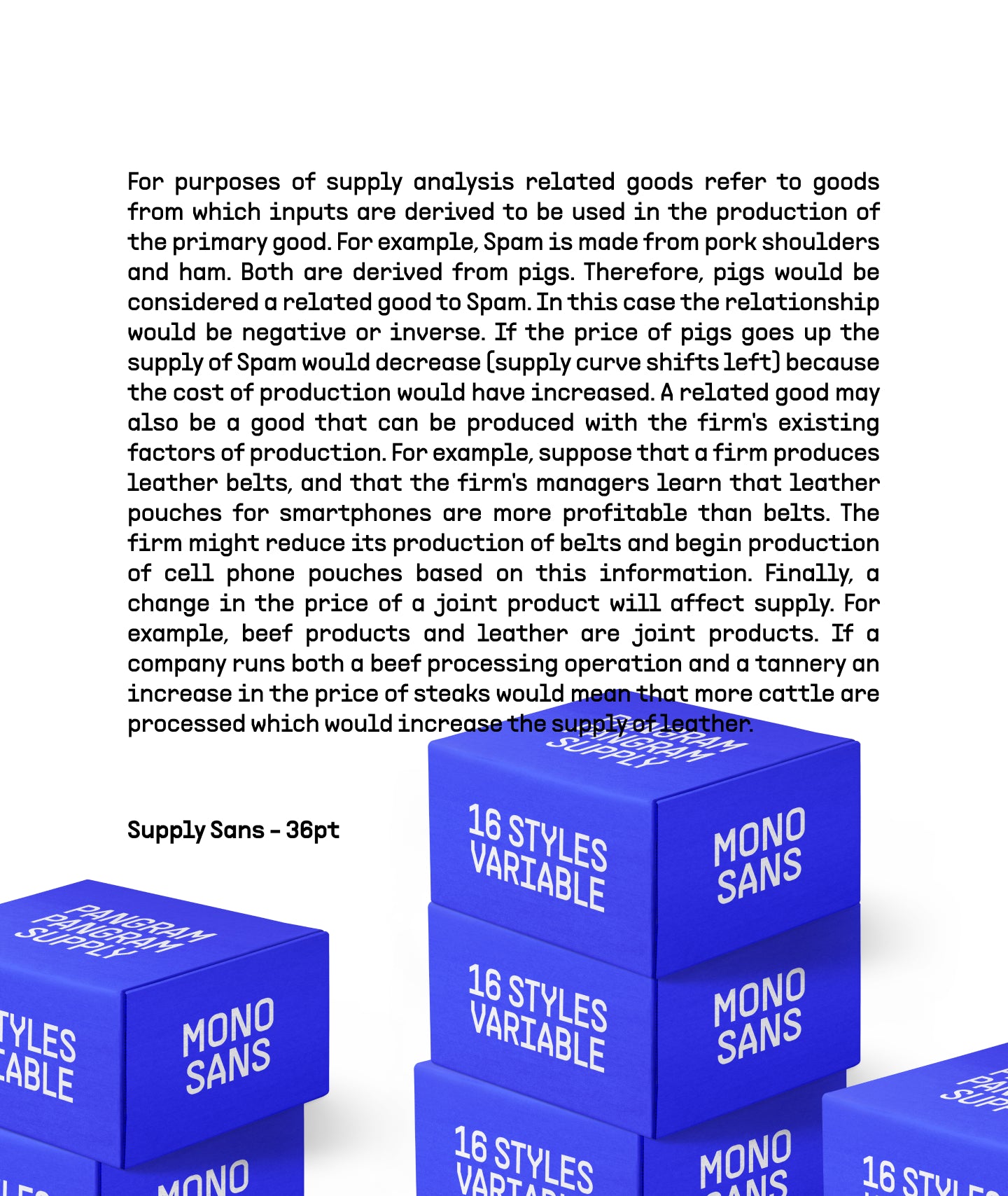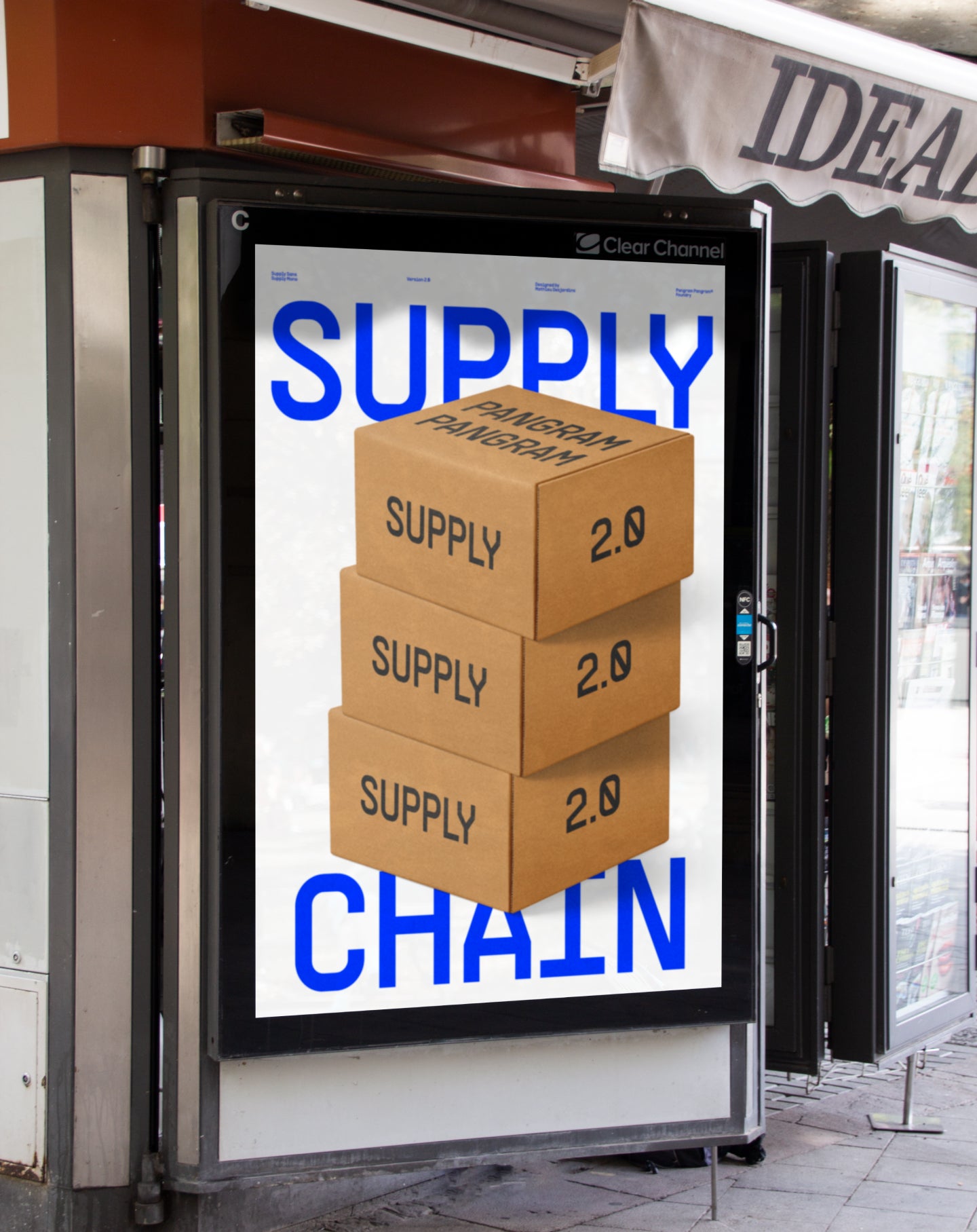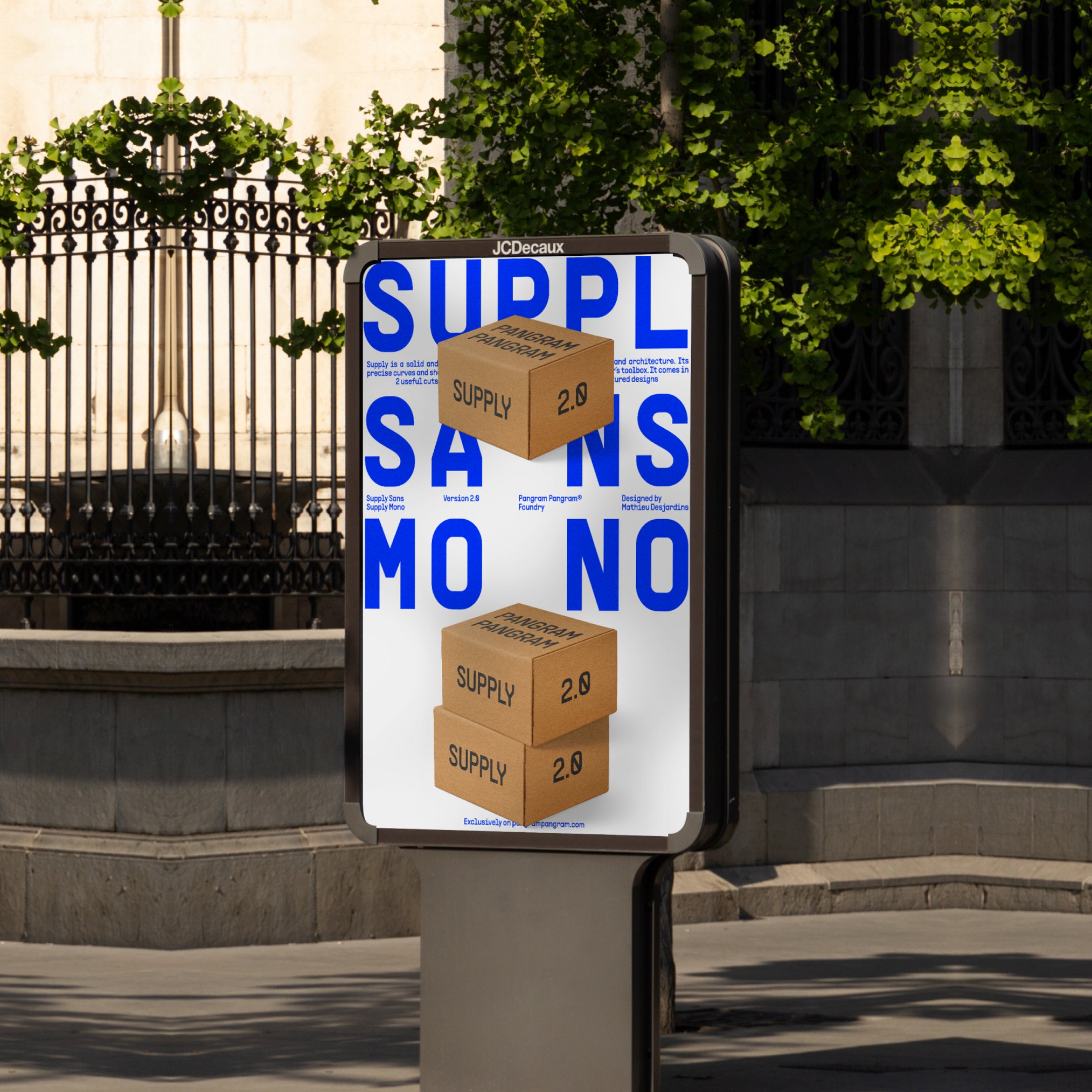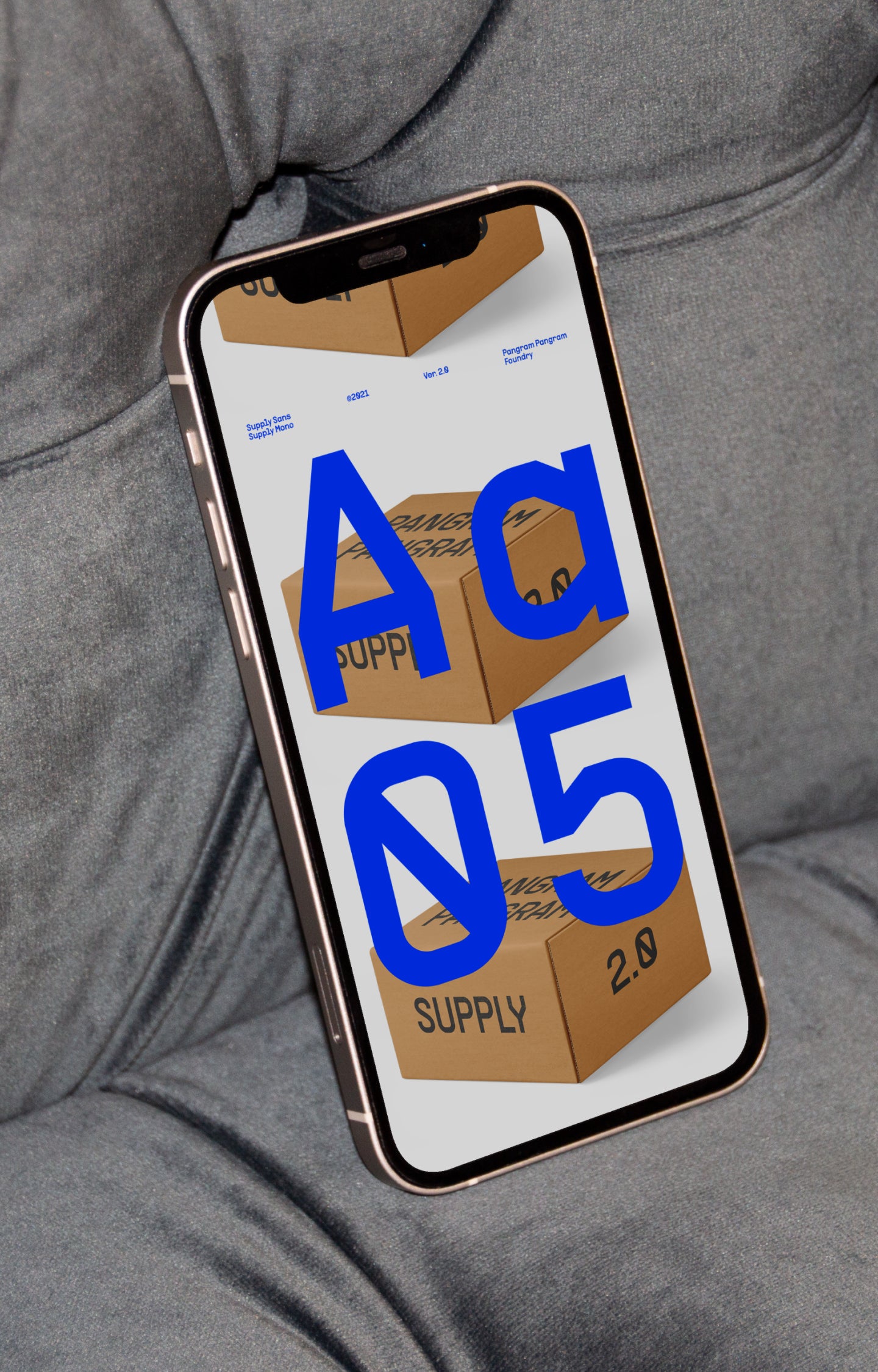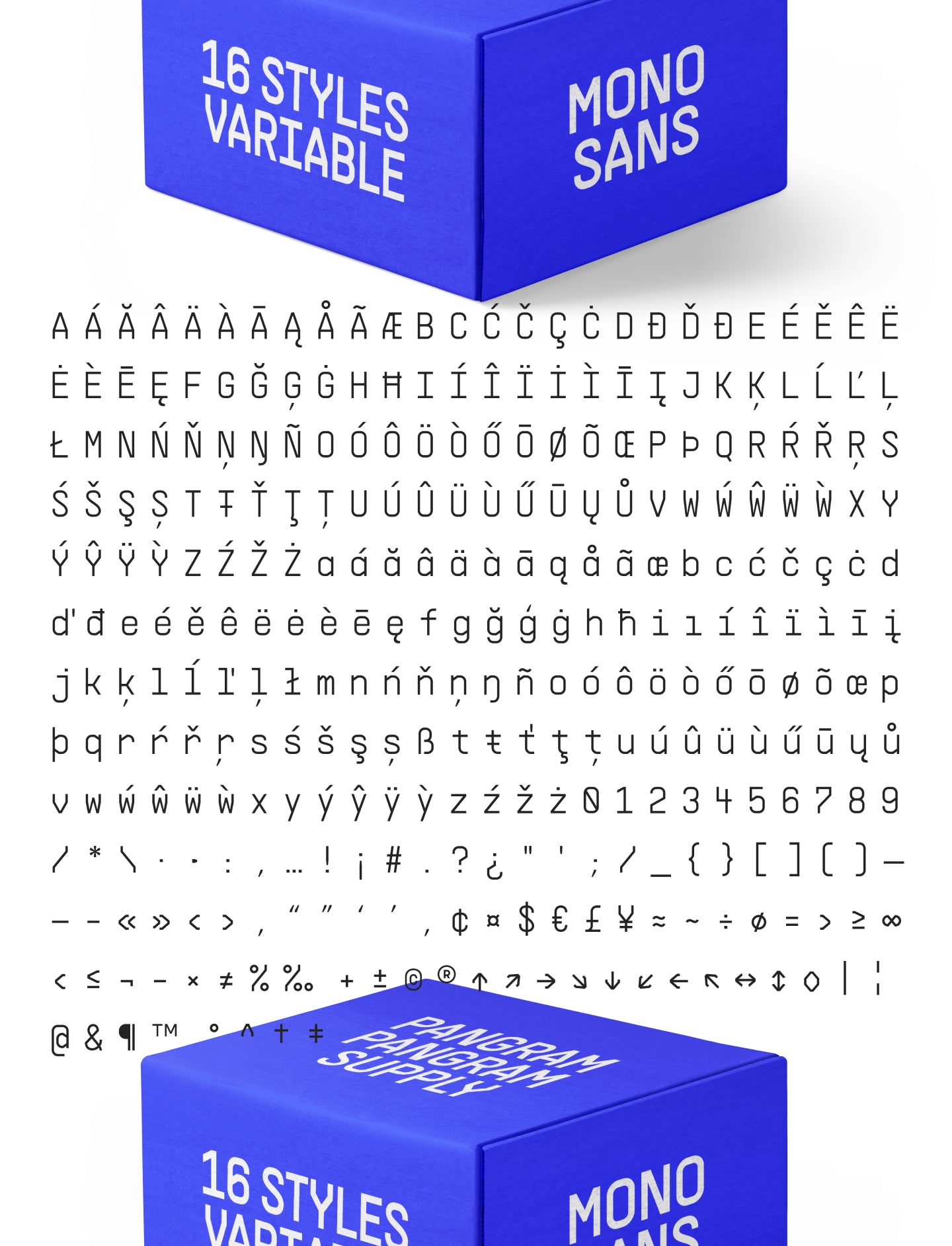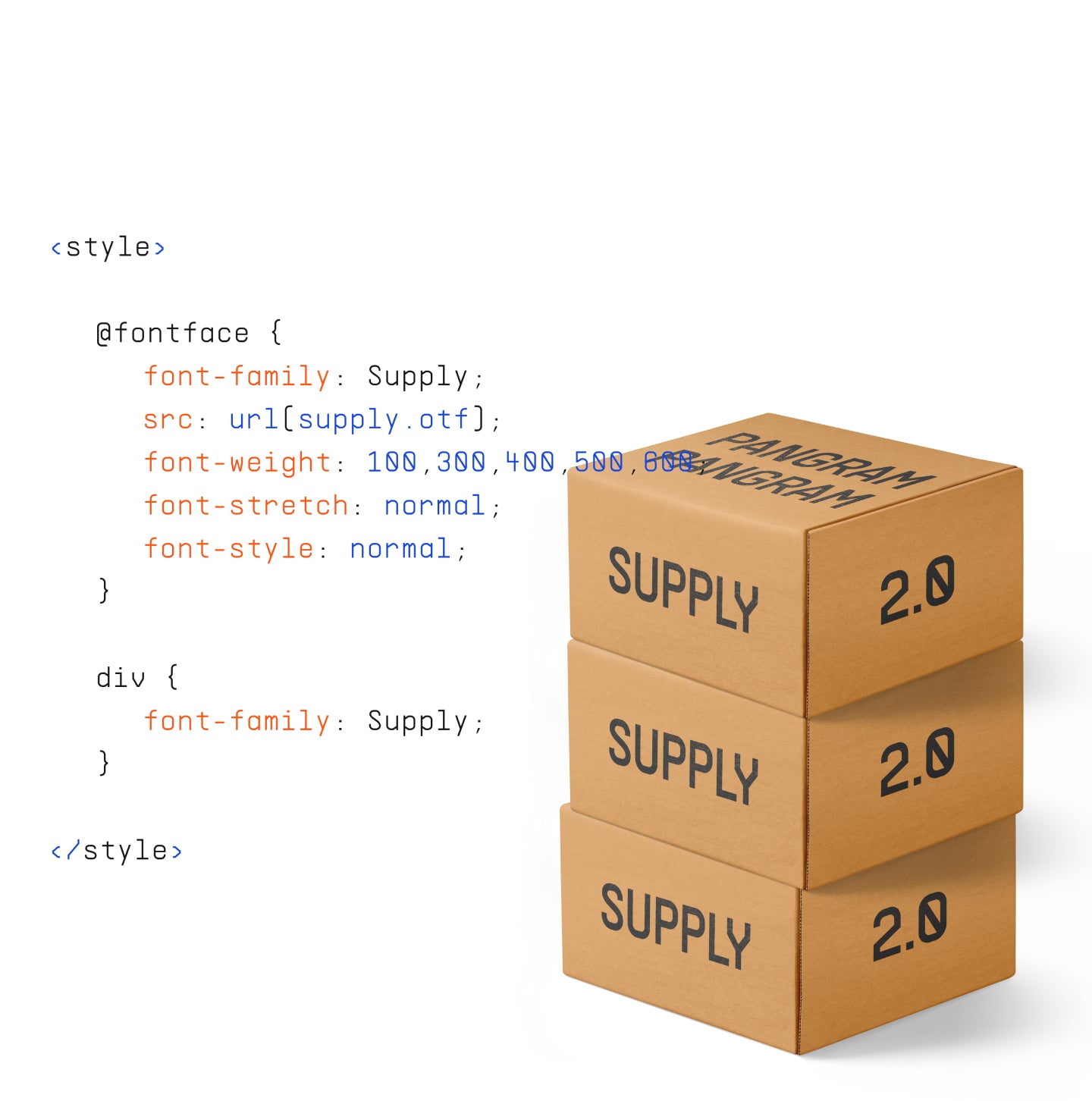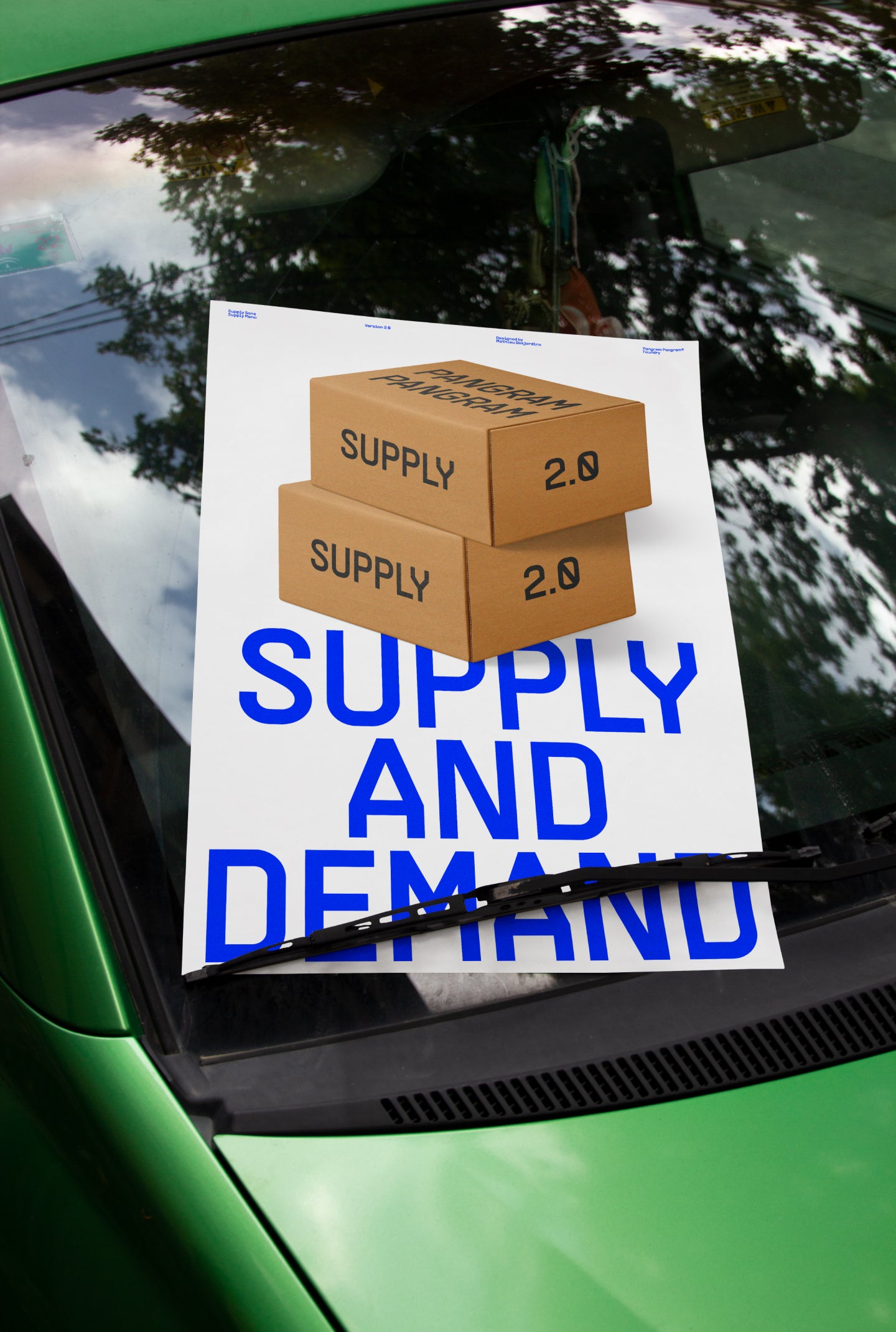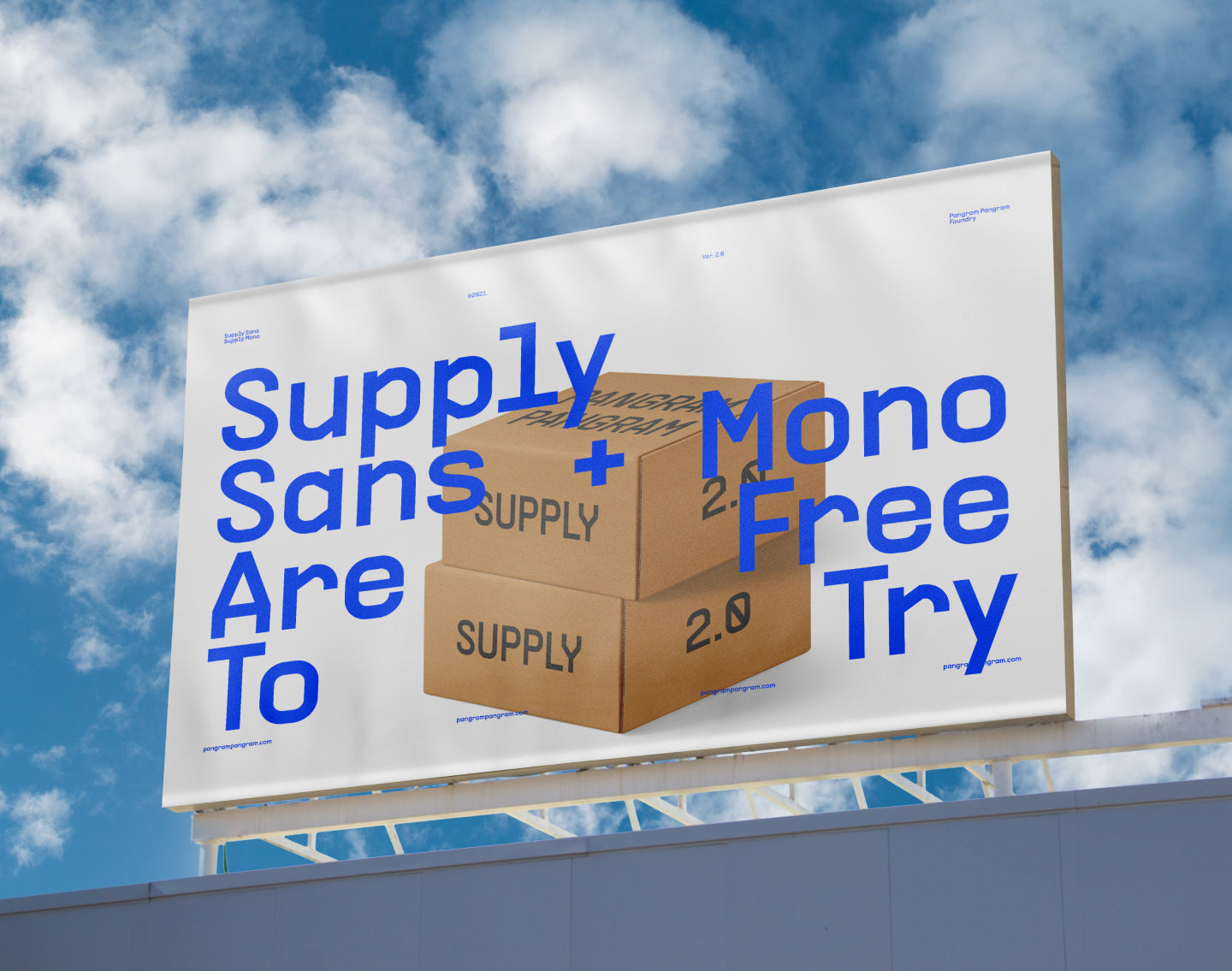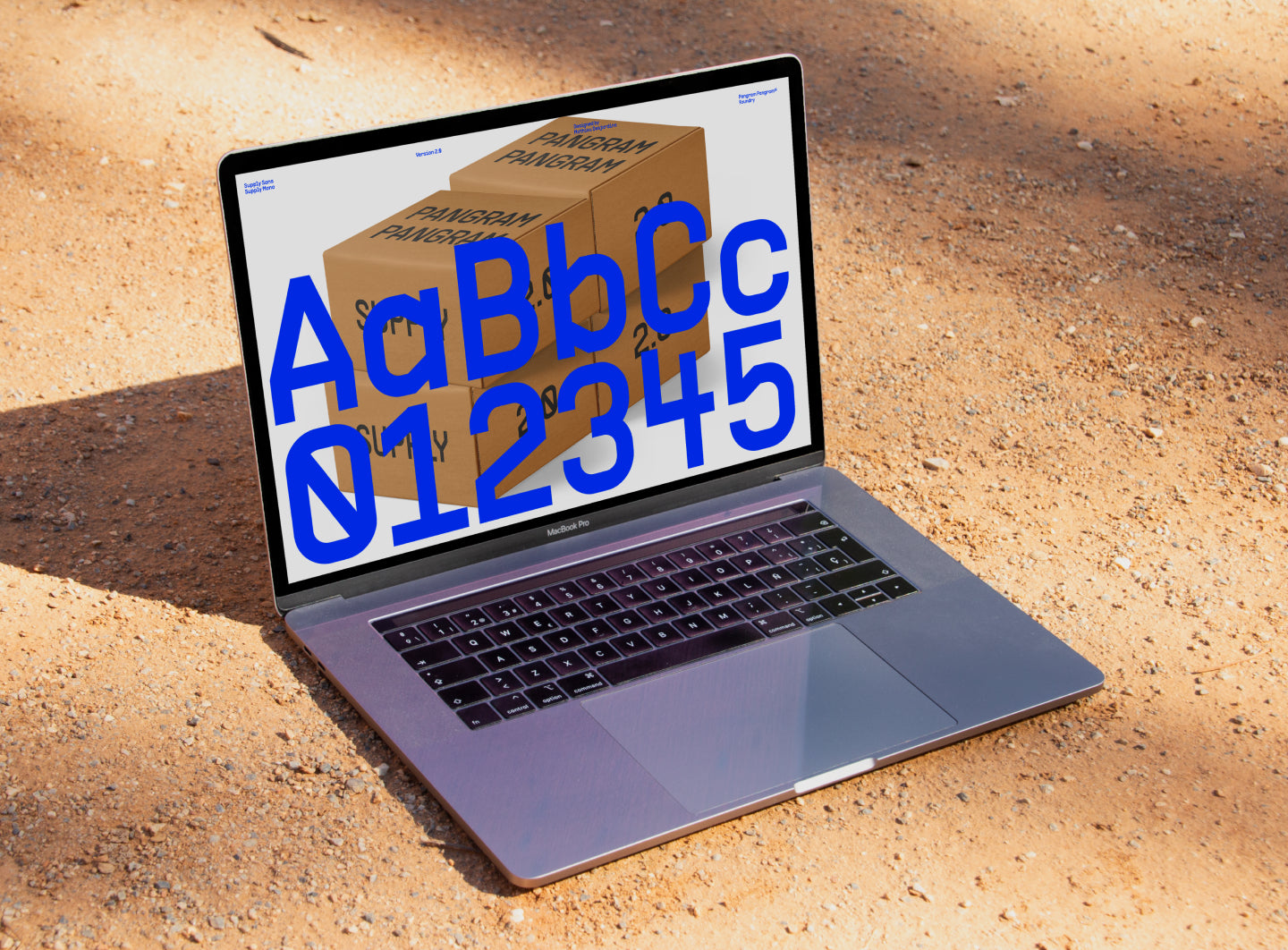
Supply Mono
Supply is the kind of typeface you reach for when you need something that works hard and looks tight.
Supply
Mono
Industrial Strength Typography
Supply is a solid and versatile typeface inspired by industrial design and architecture. Its precise curves and sharp angles makes this new font one for every designer’s toolbox. It comes in 2 useful cuts: a Sans Serif and a classic Monospace for more structured designs